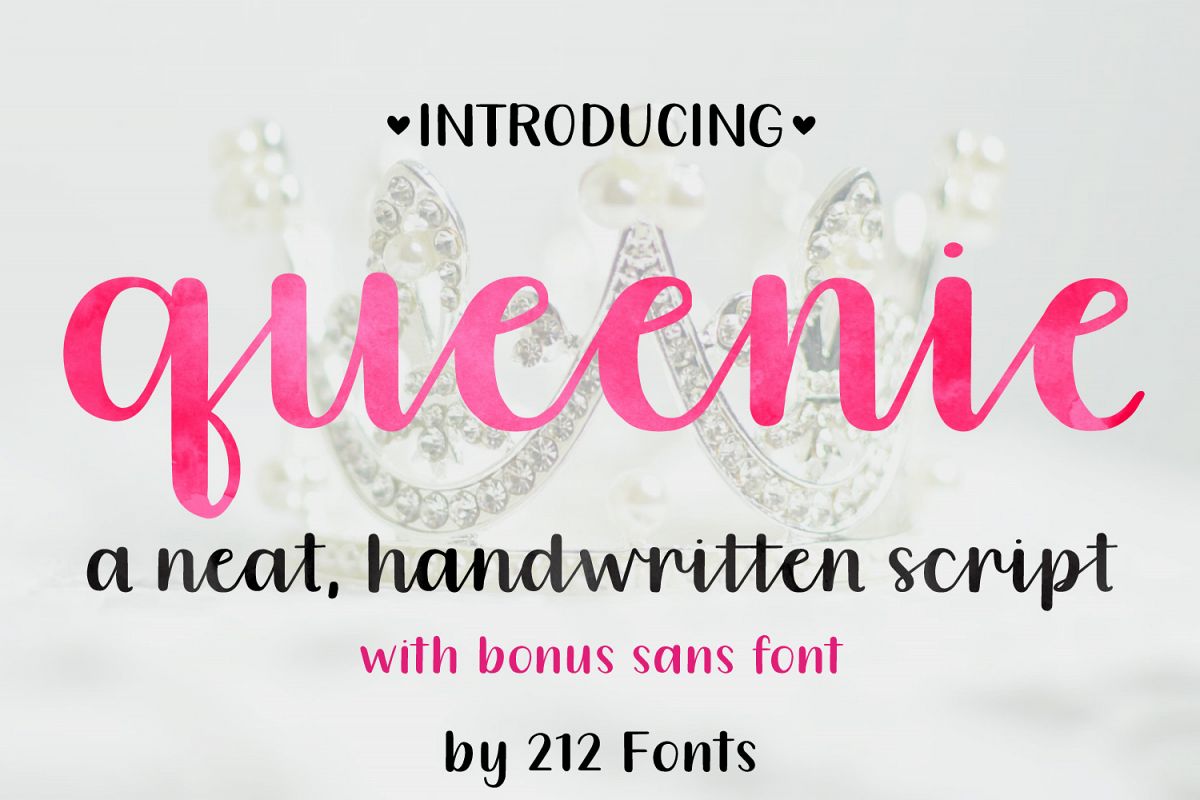
Queenie Font Family including Script, Sans, and Serif
212 Queenie Serif
212 Queenie Script
212 Queenie Sans
Queenie is a clean, handwritten font that includes a script and sans version and swashes that can be applied to the beginning and ends of all letters.
Perfect for Wedding invitations, Branding, Logos, Greeting Cards and Quotes.